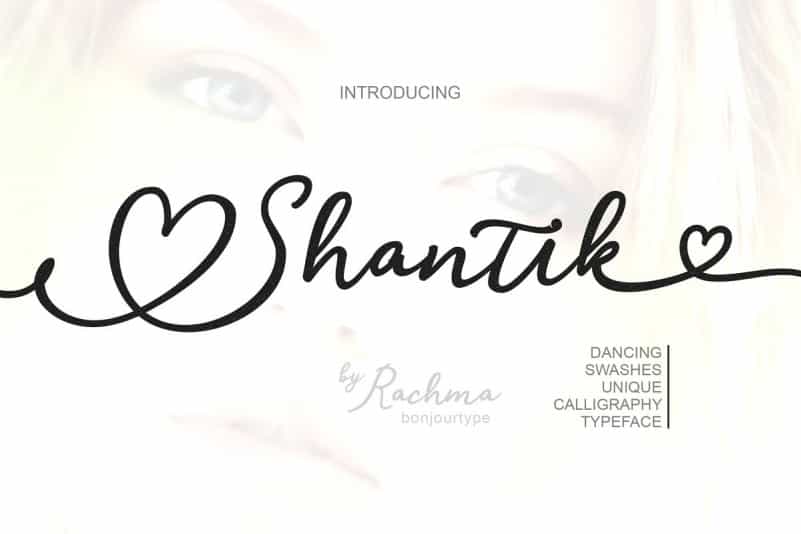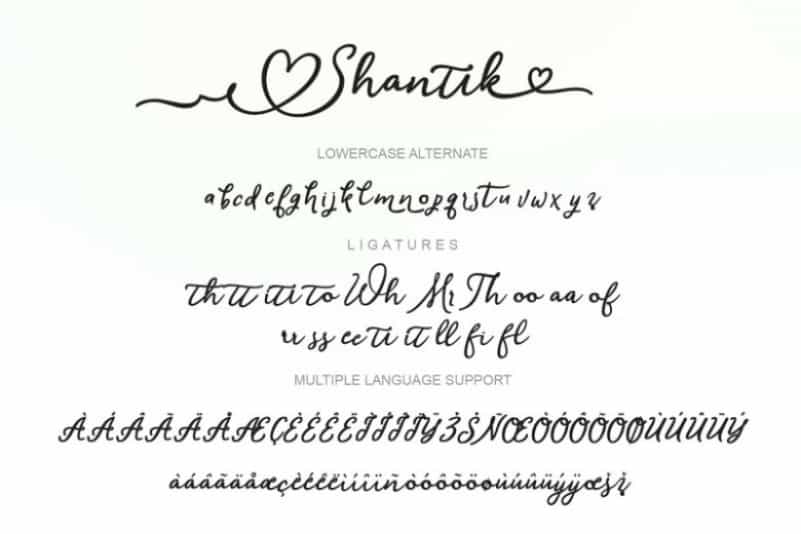
Shantik Font – It is a real handlettered script font. Examine this new typeface, I believe it merges all these features. Plain and straightforward, he wears a smile. It is just right for signatures or design, where you do not have to follow a strict rule? Shantik Script Font is Beautiful Word from English and translated into Indonesian, Syantik Script is a really beautiful and unique font with attractive swash fonts.